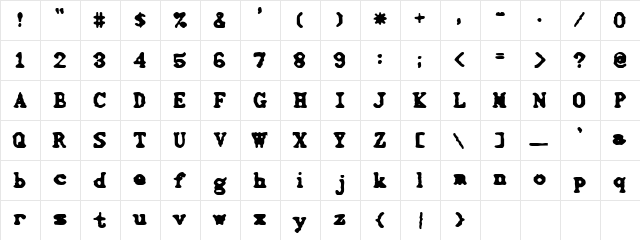
3000 Regular
| Copyright | Designed 1996 by Michael Spina of phantasmic design |
Design Context for 3000 Typeface
3000 takes a measured approach to typography — its balanced proportions and neutral character make it a reliable workhorse for both digital and print work.
Pro Tip: Pair 3000 with a font of contrasting weight or personality to build a more expressive typographic hierarchy.